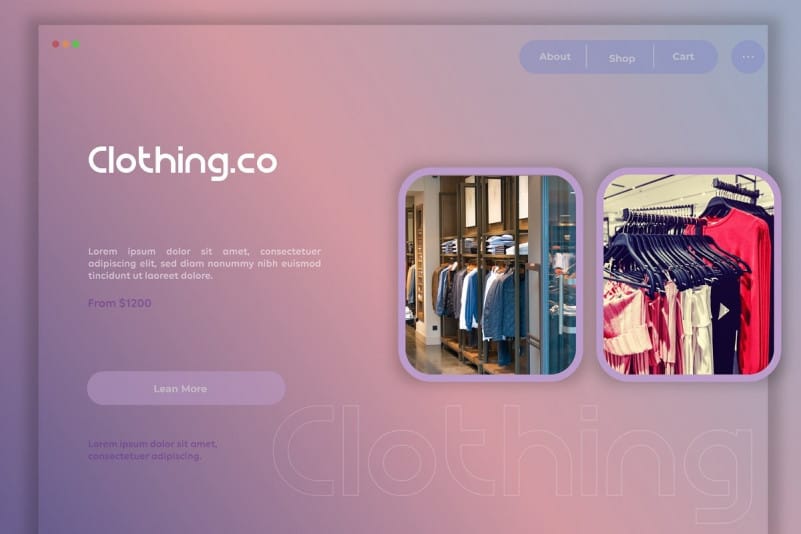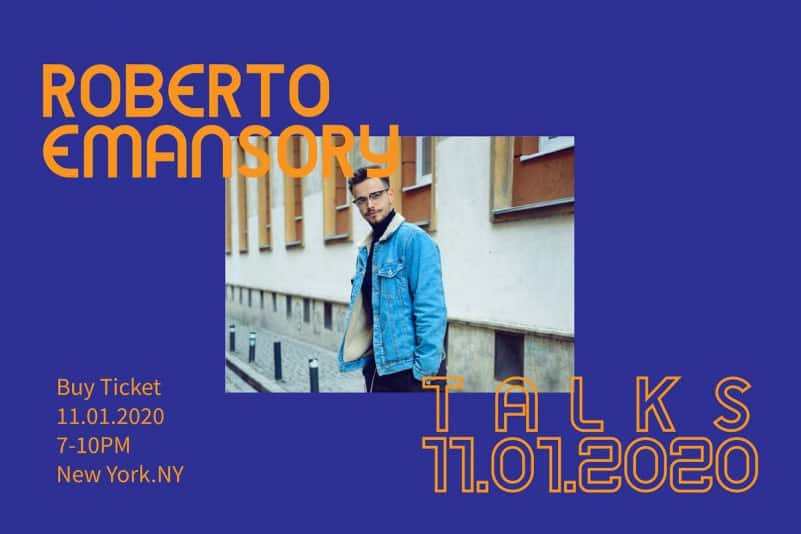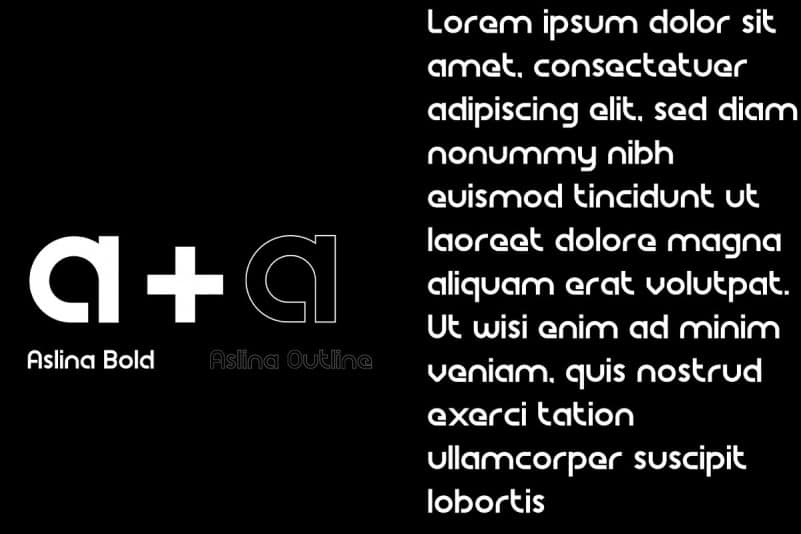
Aslina Display Font
Aslina Display Font is display/headline font, it’s a typeface that doesn’t go unnoticed due to its particular design. Aslina Display Font is ideal for large and medium headers and titles, but also perfectly suitable for short or large paragraphs as it creates an effect that is quite different from the classic sans-serif and definitely unique. It’s the perfect fit. It’s a memorable, strong and elegant typeface. APPLICATIONS This collection is perfect for headlines, quotes, magazine covers, editorial design, print posters, window shop design, and much more.